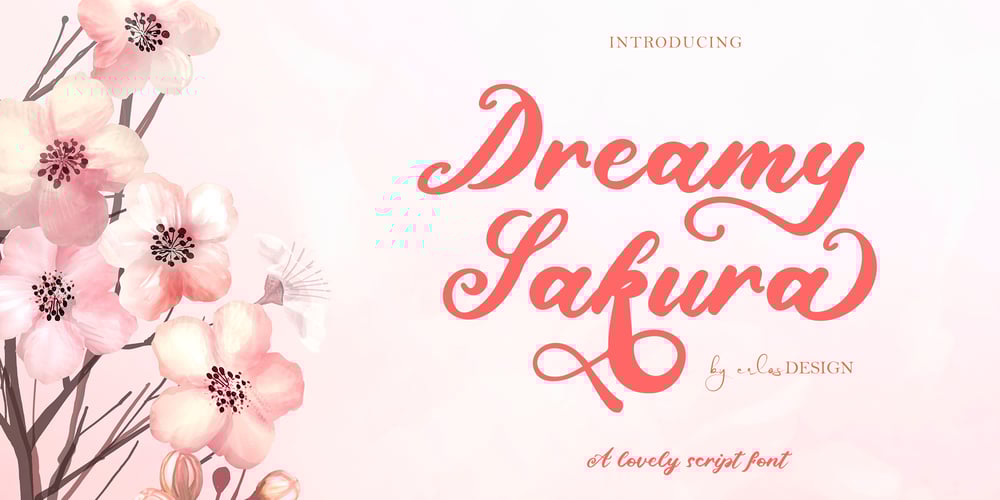
Dreamy Sakura Font Family was designed by Erlangga Suherman and published by ErlosDesign. Dreamy Sakura contains 1 styles and family package options. Dreamy Sakura is a lovely script font. Whether you are using it for designs, quotes, titles, brand names, book covers, posters, or just any creation that requires a touch of beauty, this font is a great choice.